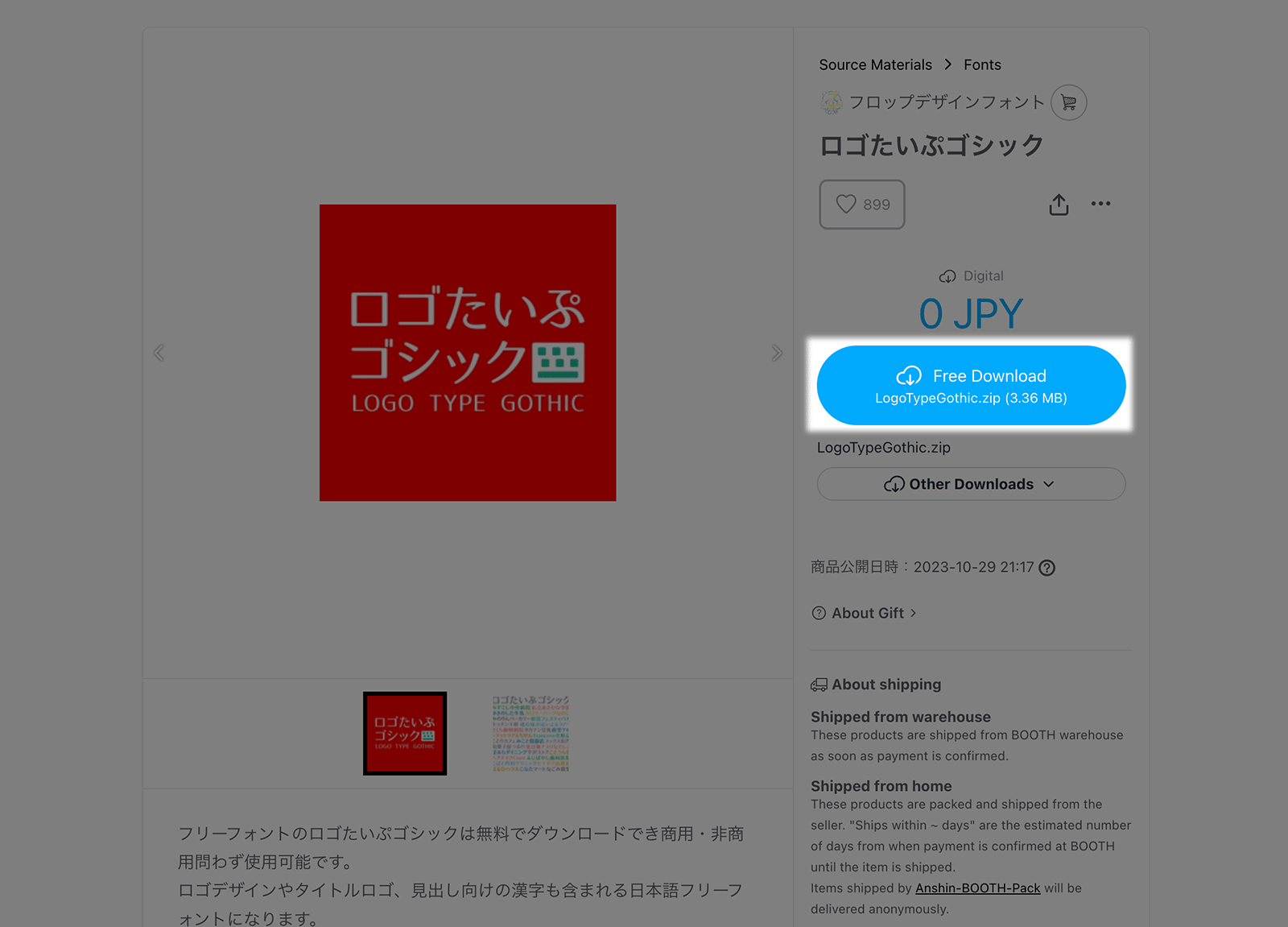
Logo Type Gothic
Logo Type Gothic (ロゴたいぷゴシック) is the latest gothic style Japanese font that you can download for free. It has the modern cool-looking that’s suitable for logo type, but also has the elegant feel in it too. The hiragana and katakana was originally designed by Kato Masashi, while other glyphs like kanji and latin characters were completed with M+ font.
- Hiragana and Katakana
- Kanji
- Alphanumeric
- Symbols and Punctuation